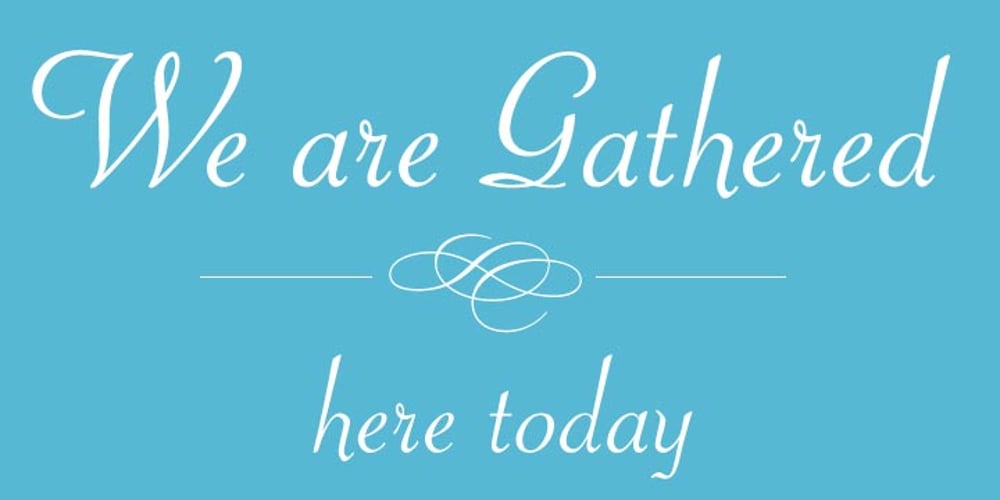
Rebekah Font Family was designed by Tom Rickner and published by Ascender. Rebekah contains 1 styles and family package options. Rebekah Pro is a revival of ATF’s Piranesi family, the regular being designed by Willard Sniffin, and the remaining weights designed by Morris Fuller Benton. Tom Rickner first revived Benton’s Italic for use in his wedding invitations for his marriage to Rebekah Zapf in 2006. He completed the character set in 2009. Rebekah Pro captures the elegance and distinction of the original. Tom carefully studied samples from 1930s American Type Founders catalogues and created a digital version with meticulous care. While considered an informal script because its letterforms do not connect, Rebekah Pro has graceful strokes and a truly elegant appearance. Tom created a variety of typographic enhancements not found in the original Piranesi italic font. These OpenType typographic features offer a distinguishing touch to everything from invitations and announcements to greeting cards and advertisements. Rebekah Pro contains the Latin 1 character set and the following OpenType typographic features: Swashes, Small Capitals, Ligatures, Alternates, Oldstyle Figures, Proportional Lining Figures, Tabular Lining Figures and Ornaments.